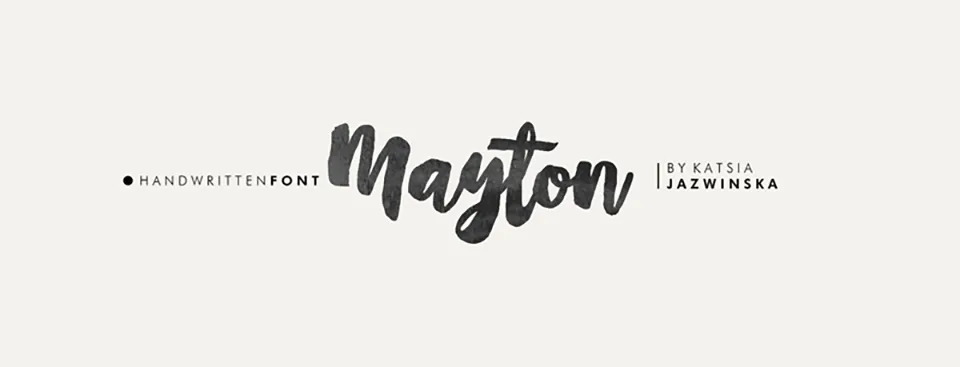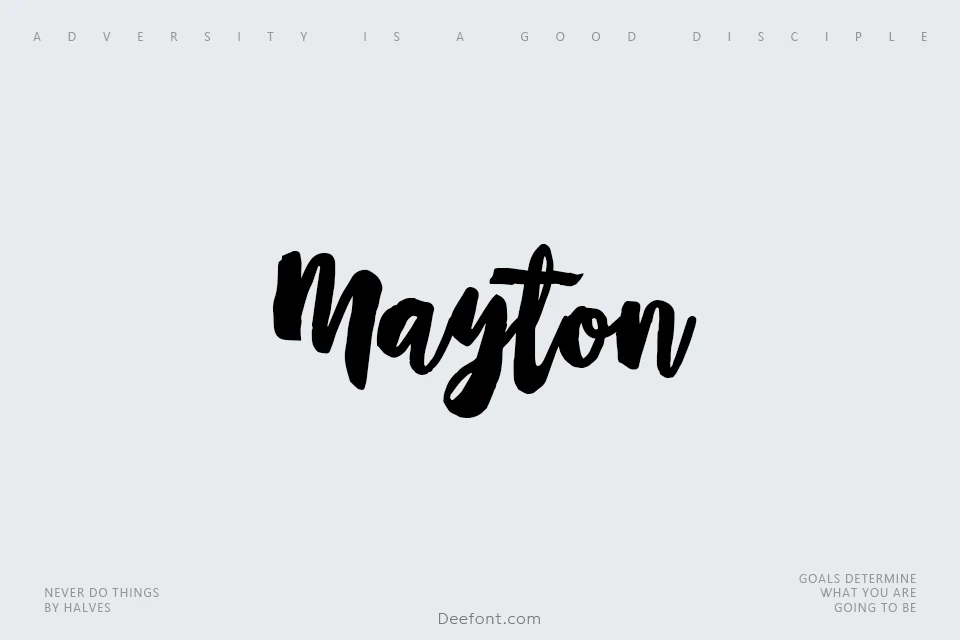
Mayton Font
Mayton Font is a stylish handwritten typeface designed by Katsia Jazwinska. It features bold, flowing brush strokes that give each letter a lively and authentic feel. The font’s natural texture and smooth curves make it perfect for creative projects that need a personal touch, such as logos, invitations, and social media graphics. Mayton stands out with its modern yet approachable character, blending elegance with a playful edge. Its versatility allows it to shine in both casual and sophisticated designs, making it a great choice for anyone looking to add a handcrafted, expressive look to their work.